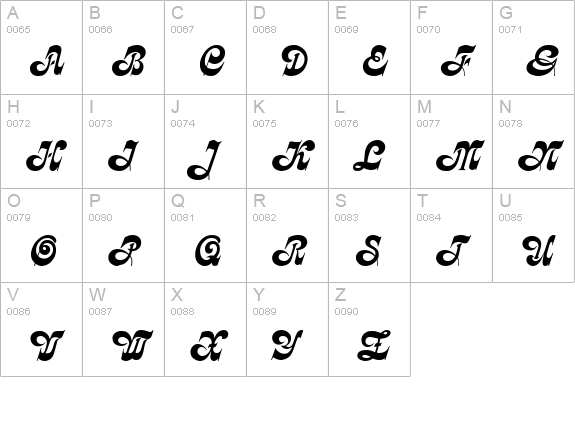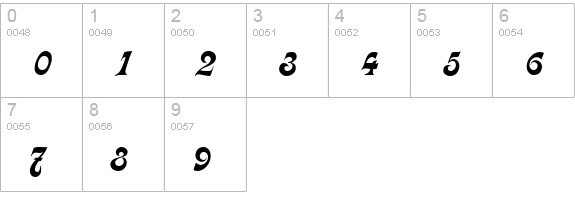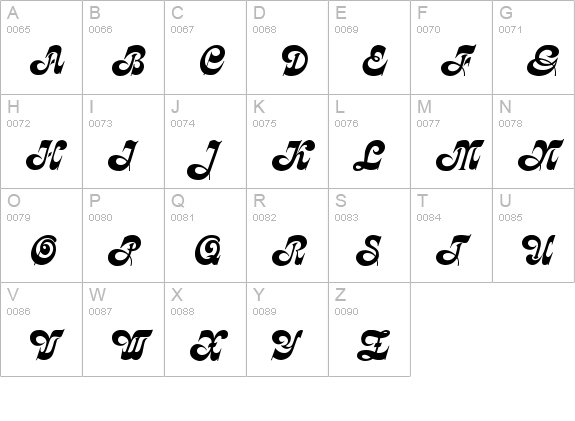
Calligraph Medium Font Details
Calligraph Medium is a balanced, medium-weight variant in the Calligraph typeface family \xE2\x80\x94 well suited to sub-headlines, navigation, and balanced editorial work.
Calligraph Medium font is a beautiful and elegant typeface that captures the essence of traditional calligraphy with a modern twist. Its graceful strokes and intricate details make it the perfect choice for adding a touch of sophistication to your designs. The medium weight of this font strikes a perfect balance between boldness and delicacy, making it versatile for a wide range of projects. This font is not only visually appealing but also easy to read, making it suitable for both headings and body text. Whether you are designing invitations, logos, or branding materials, Calligraph Medium font will bring a touch of class to your work. Best of all, Calligraph Medium font is free to download at FontsMarket.com. So why wait? Add this exquisite typeface to your collection today and elevate your designs to new heights of elegance and style.